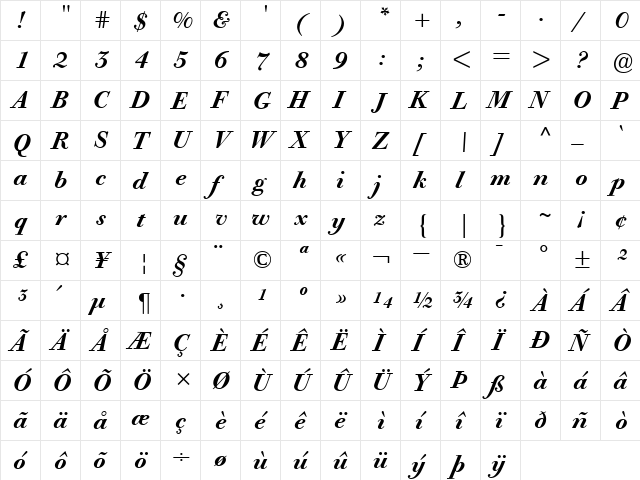
BodoniOldFaceBE-Medium MediumItalic Font Preview
BodoniOldFaceBE-Medium MediumItalic
BodoniOldFaceBE-Medium MediumItalic Font Details
Design Context for BodoniOldFaceBE-Medium Typeface
BodoniOldFaceBE-Medium takes a measured approach to typography — its balanced proportions and neutral character make it a reliable workhorse for both digital and print work. Its italic angle brings a sense of urgency and motion to the letterforms.